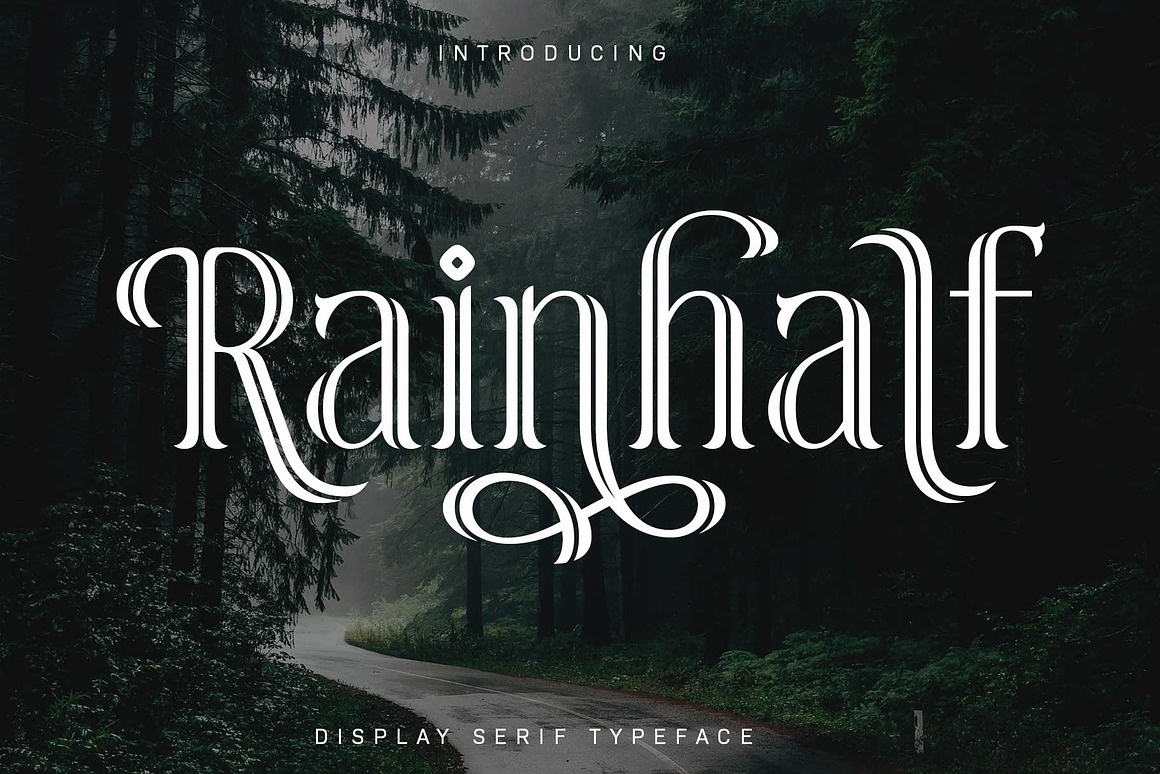
Rainhalf Font
About Rainhalf
Rainhalf is a distinctive display serif that blends timeless sophistication with expressive contemporary flair. Designed with refined proportions, graceful curves, and elegant high-contrast strokes, it instantly elevates headlines, logos, branding, editorial layouts, packaging, and luxury-inspired designs. Every character is carefully crafted to create a memorable visual presence, making your typography feel both artistic and effortlessly premium.